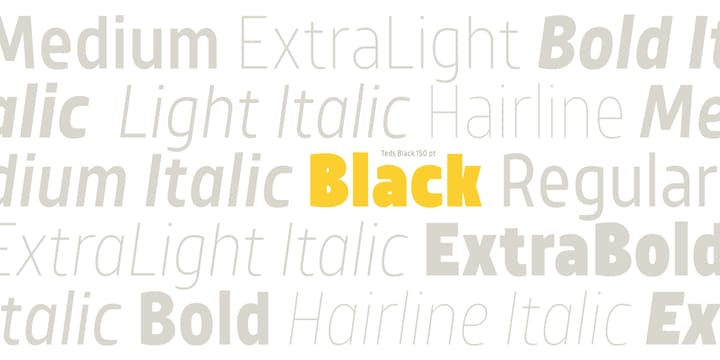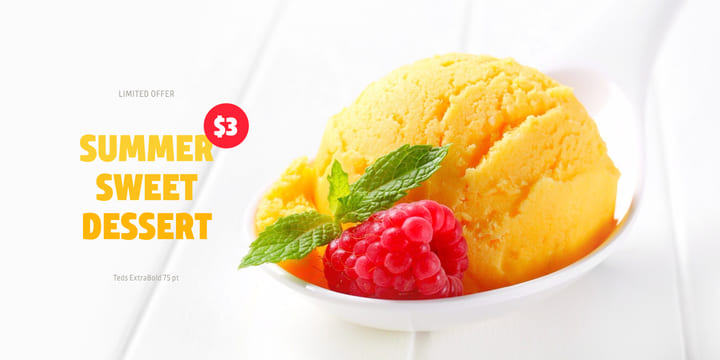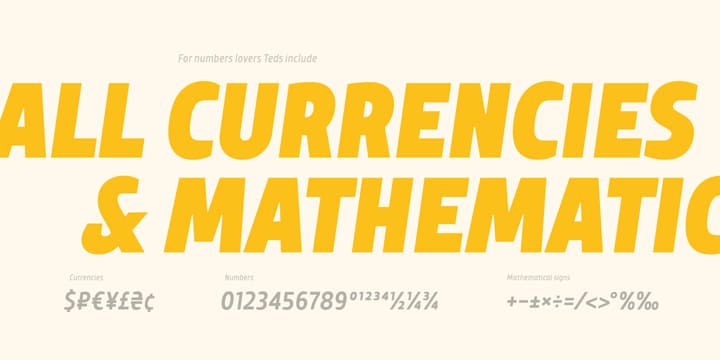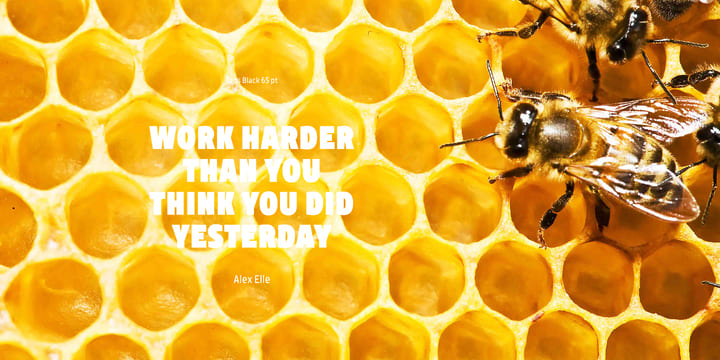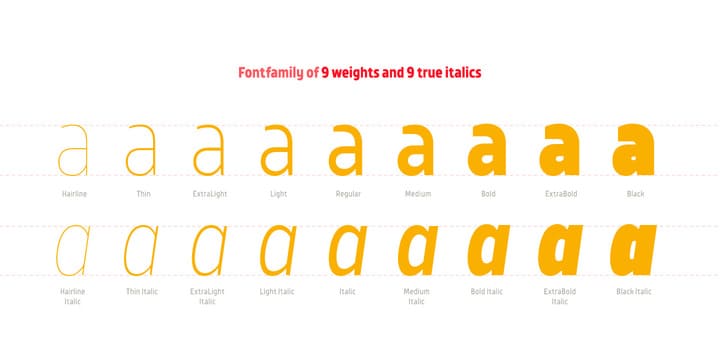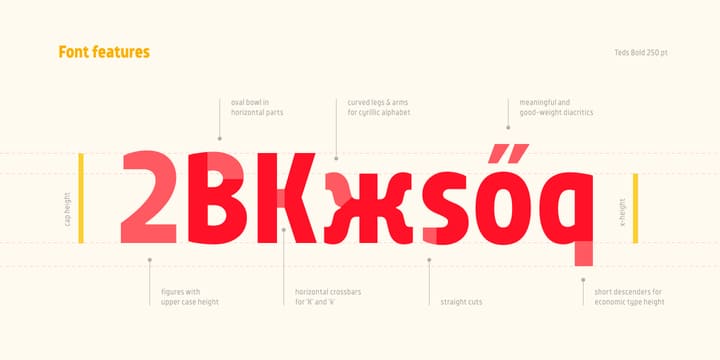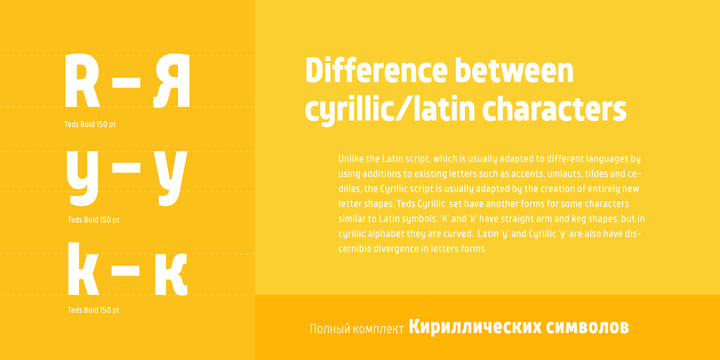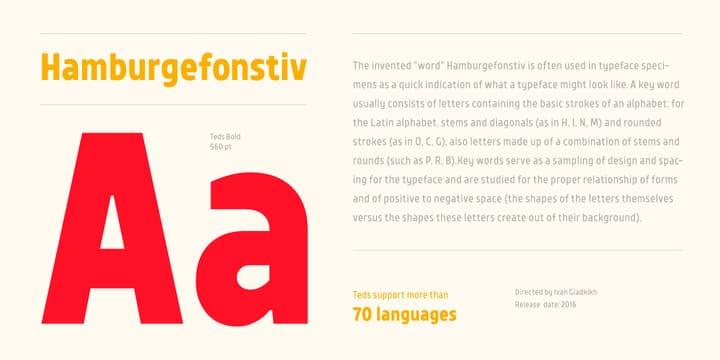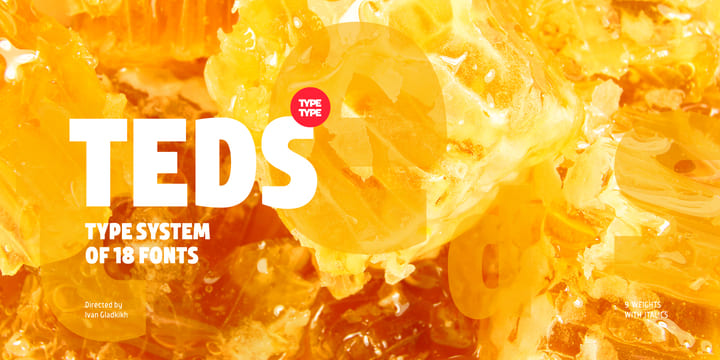
TT Teds Family (18 fonts)
We've created a broad coverage for the TT Teds fontfamily varying on the typeface width (Hairline, Thin, Extralight, Light, Regular, Medium, Bold, Extrabold, Black & Italics), which allows choosing the needed font for the most complicated tasks in any situation. Fonts of the TT Teds fontfamily are adapted for web and mobile applications and any other display media specializing in small-size font imaging.